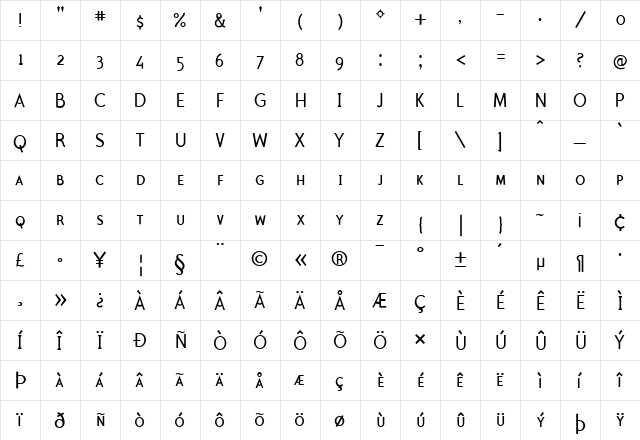
Polymer Caps Book
Design Context for Polymer Caps Typeface
Polymer Caps offers clean, dependable letterforms without strong stylistic allegiance, making it a practical choice for designers who need flexibility.
Pro Tip: Use Polymer Caps in both headline and body roles to test its range before committing to a single application.